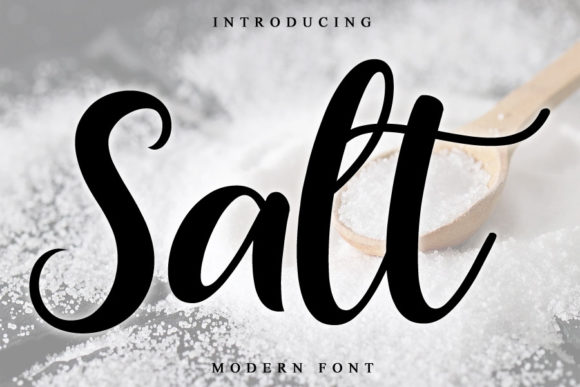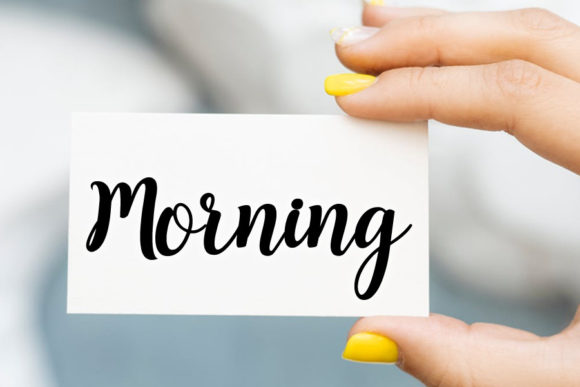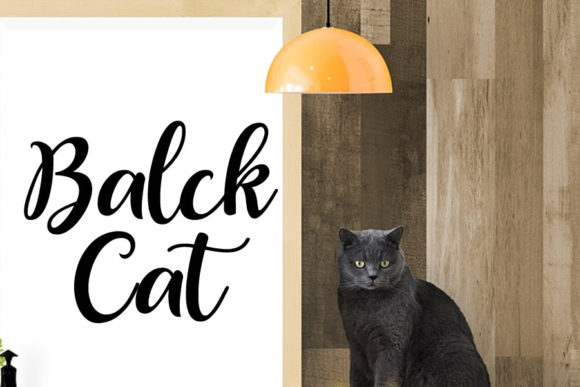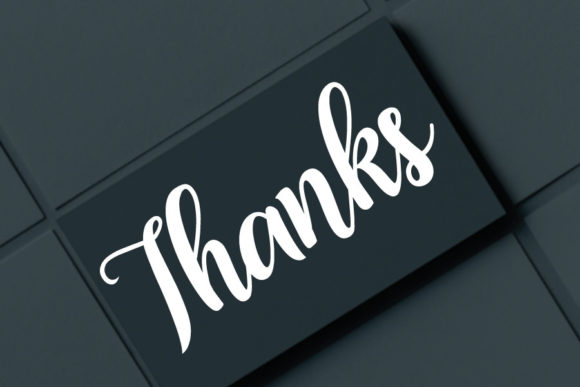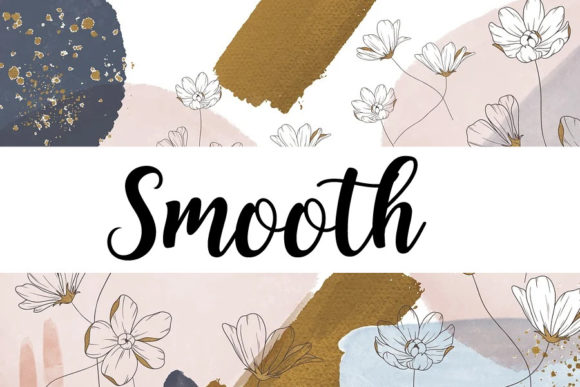
Salt Font
About Salt Font
Introducing “Salt,” a fresh and beautiful font tailored for diverse design purposes. Whether you’re working on YouTube banners, cover logo mockups, wedding invitations, ID cards, flyers, or crafts, this font brings a versatile and appealing aesthetic to your projects. The use of “Salt” not only enhances the visual appeal but also contributes to the progress and development of your business. Beyond that, this font is characterized by its simplicity and uniqueness.
Immerse your YouTube banners in the fresh and beautiful style of “Salt,” creating a captivating and visually dynamic channel presence. The font’s appeal and versatility make it an excellent choice for engaging your audience.
For cover logo mockups, “Salt” injects a sense of freshness and beauty, contributing to a modern and memorable brand identity. Its simplicity ensures a clean and sophisticated look, making your logo stand out with a unique charm.
When crafting wedding invitations, let “Salt” add a touch of elegance and freshness to the celebration. The font’s unique character brings a personal and stylish feel to the invitations, making each piece a work of art.
In summary, “Salt” is more than just a font; it’s a design tool crafted to enhance your creative projects. Its fresh and beautiful qualities, coupled with simplicity and uniqueness, make it a versatile choice for various applications, allowing your designs to flourish and leave a lasting impact.